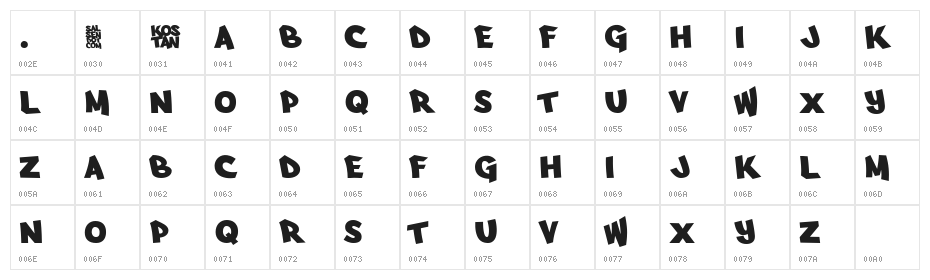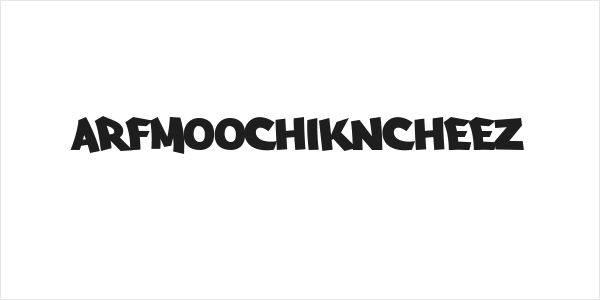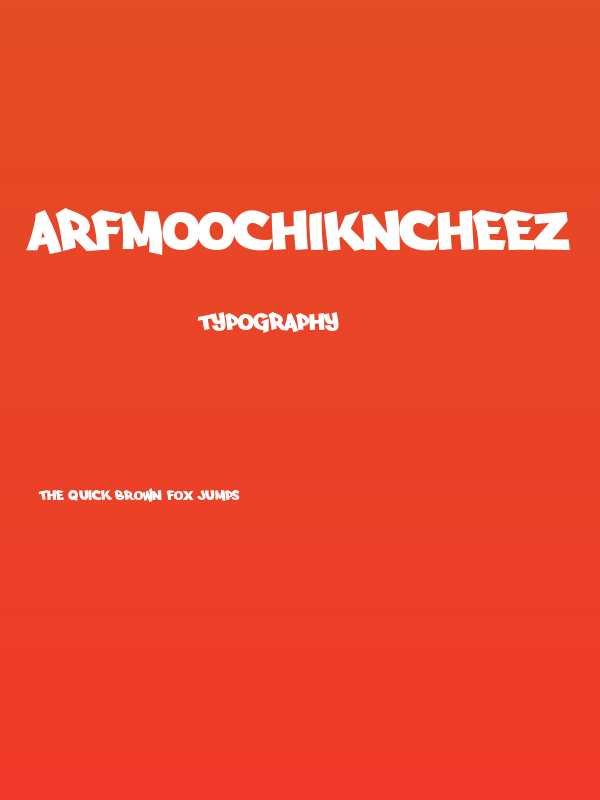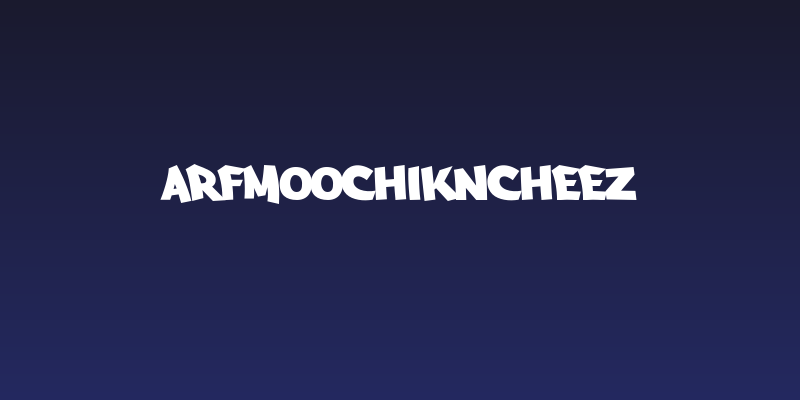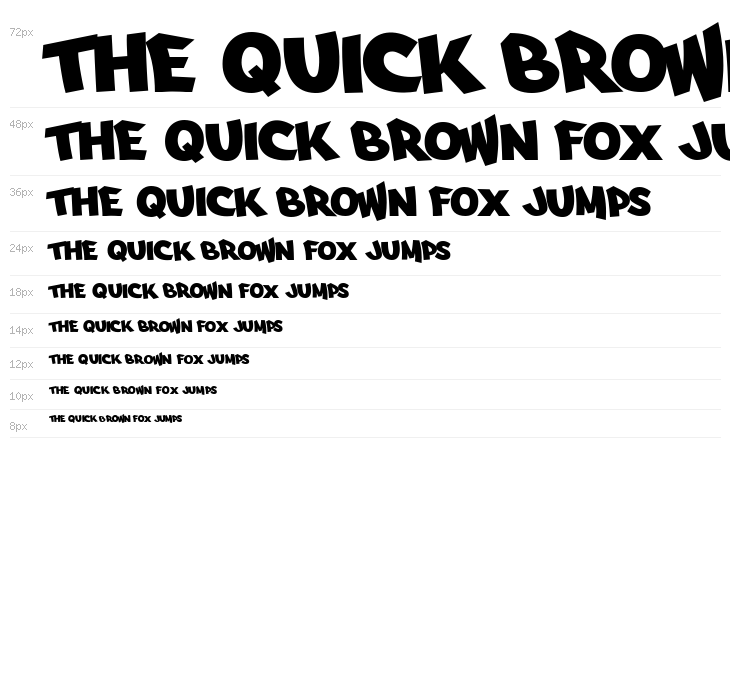
Arfmoochikncheez Font
Arfmoochikncheez Description
This font features a bold and playful style with exaggerated, thick strokes that give it a cartoonish and energetic appearance. The characters are slightly irregular, adding a sense of movement and fun. The uppercase and lowercase letters maintain a consistent weight, contributing to the font's cohesive look. The overall design is eye-catching and suitable for projects that require a lively and informal touch. The font's unique character shapes make it stand out, making it ideal for creative and unconventional designs.
| Proposed Projects | Perfect for comic books, children's books, playful branding, posters, and party invitations. |